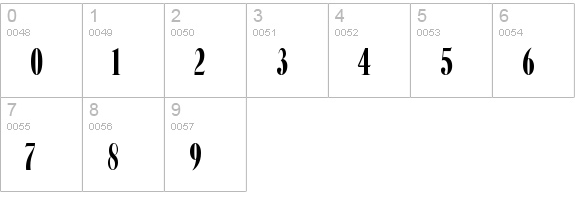
CaslonGraComD is a timeless and elegant serif font that exudes sophistication and class. With its graceful curves and delicate details, this typeface adds a touch of refinement to any design project. The classic yet contemporary design makes it versatile and suitable for a wide range of applications, from branding to editorial design. What sets CaslonGraComD apart is its unique blend of traditional charm and modern flair, making it a perfect choice for those seeking a font that seamlessly blends the old with the new. The meticulously crafted letterforms and balanced spacing ensure excellent legibility, making it a reliable choice for both print and digital projects. And the best part? CaslonGraComD is available for free download at FontsMarket.com, allowing designers and creatives to access this exquisite font without breaking the bank. So why wait? Elevate your designs with CaslonGraComD today and experience the beauty and versatility of this stunning typeface.